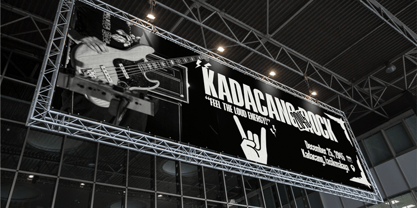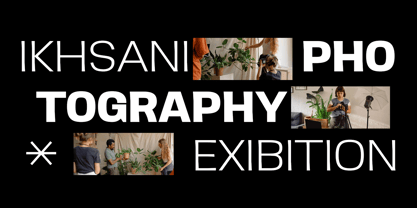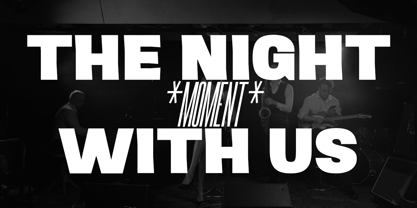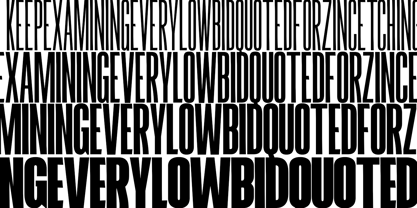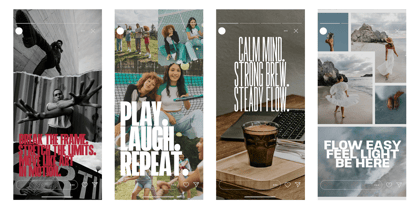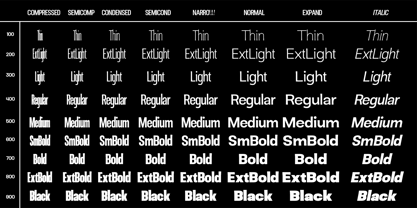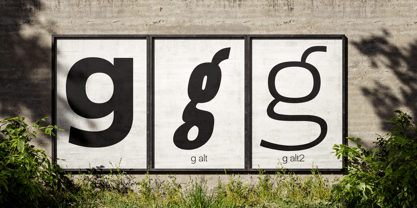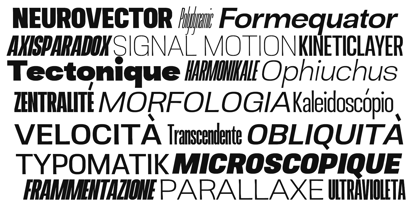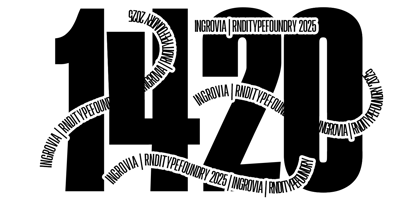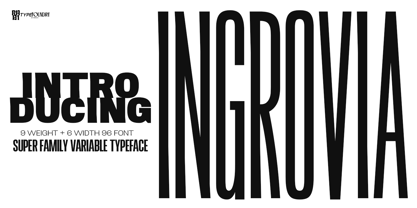
Ingrovia
by RNDI Type Foundry
The Ingrovia Font Family was designed by Randi Ilhamsyah and published by RNDI Type Foundry. Ingrovia contains 96 styles and family package options. More about this family
Ingrovia is a sophisticated sans serif font that effortlessly merges classic elegance with modern sensibilities. Its Grotesk style offers a clean and versatile aesthetic, making it an ideal choice for a variety of applications, from eye-catching posters and dynamic billboards to engaging book covers and impactful advertisements. The variable nature of Ingrovia allows for a customizable design experience, enabling you to tailor its weight and style to perfectly fit your project’s needs.
Designers: Randi Ilhamsyah
Foundry: RNDI Type Foundry